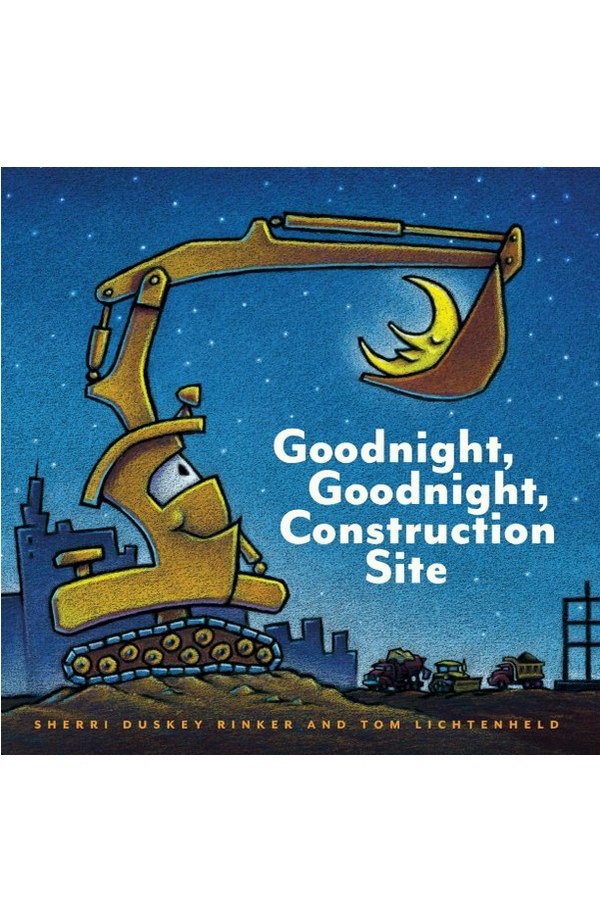
Goodnight, Construction Site Font
BookGoodnight, Construction is a children's picture book written by Sherri Duskey Rinker and illustrated by Tom Lichtenheld. The story follows a group of hardworking construction vehicles as they prepare for bed at the end of a busy day.